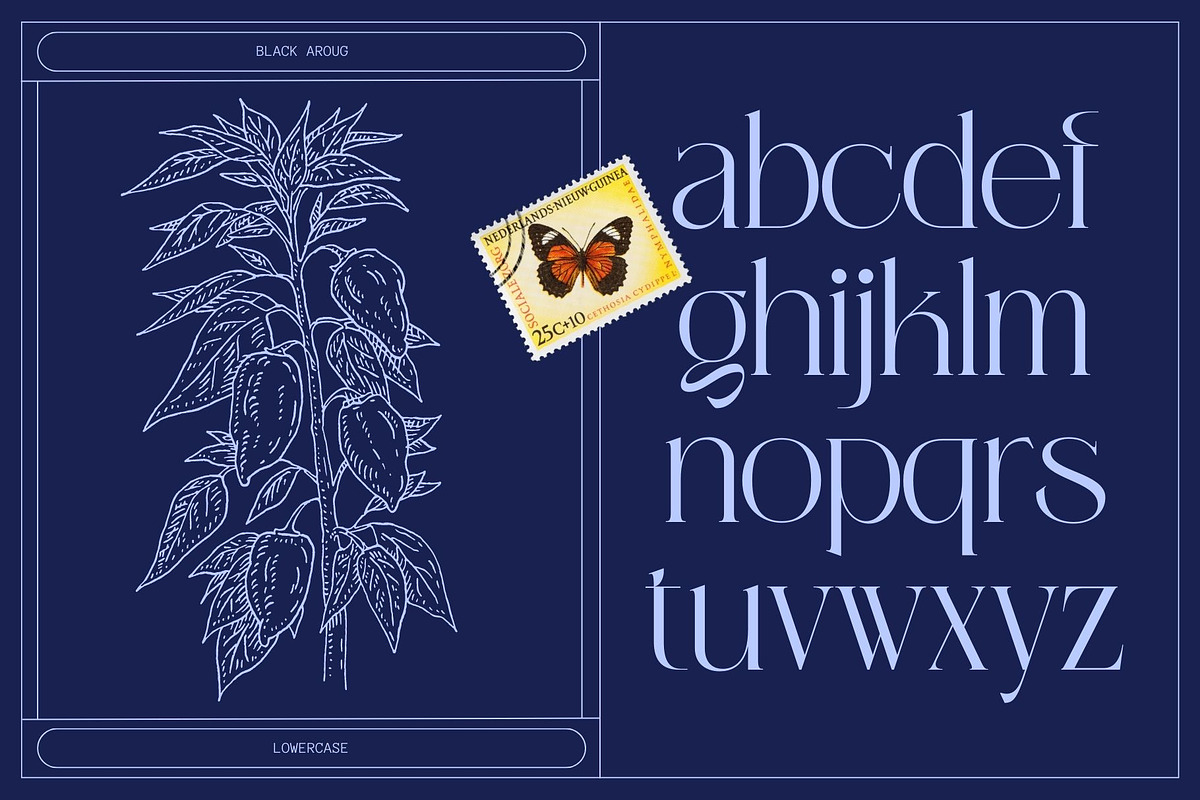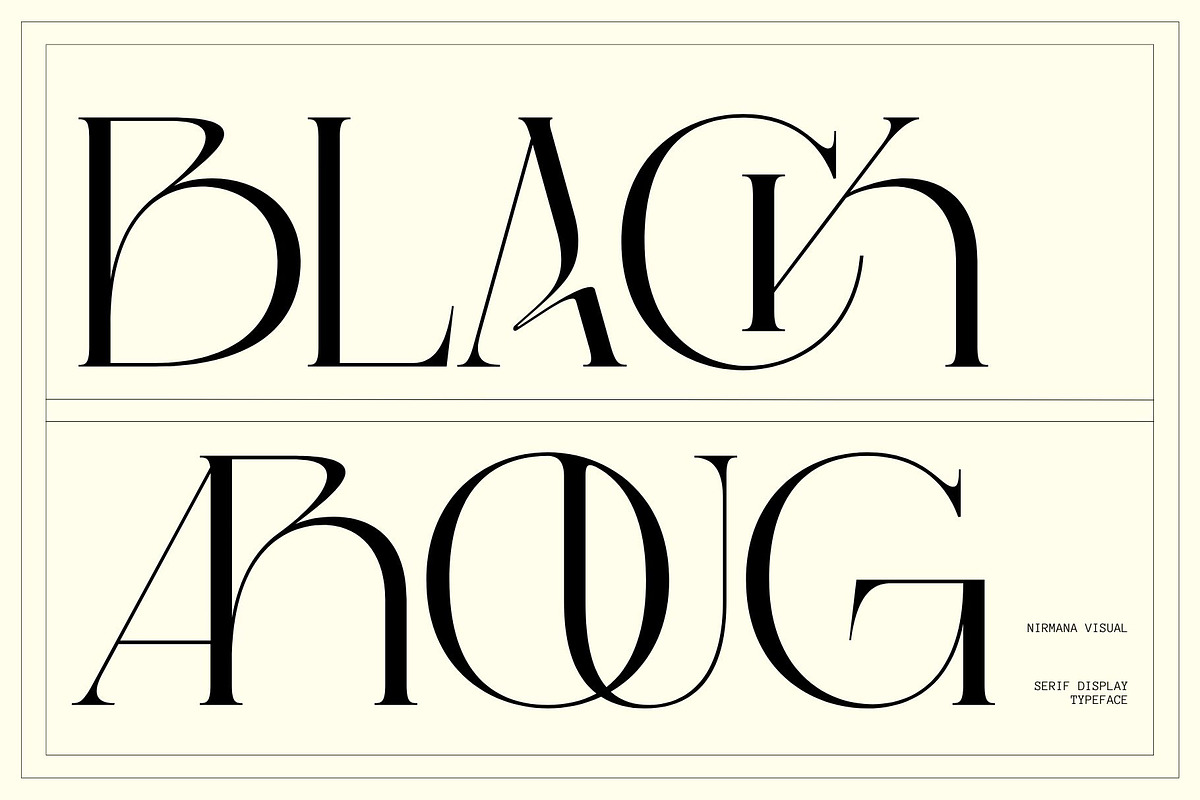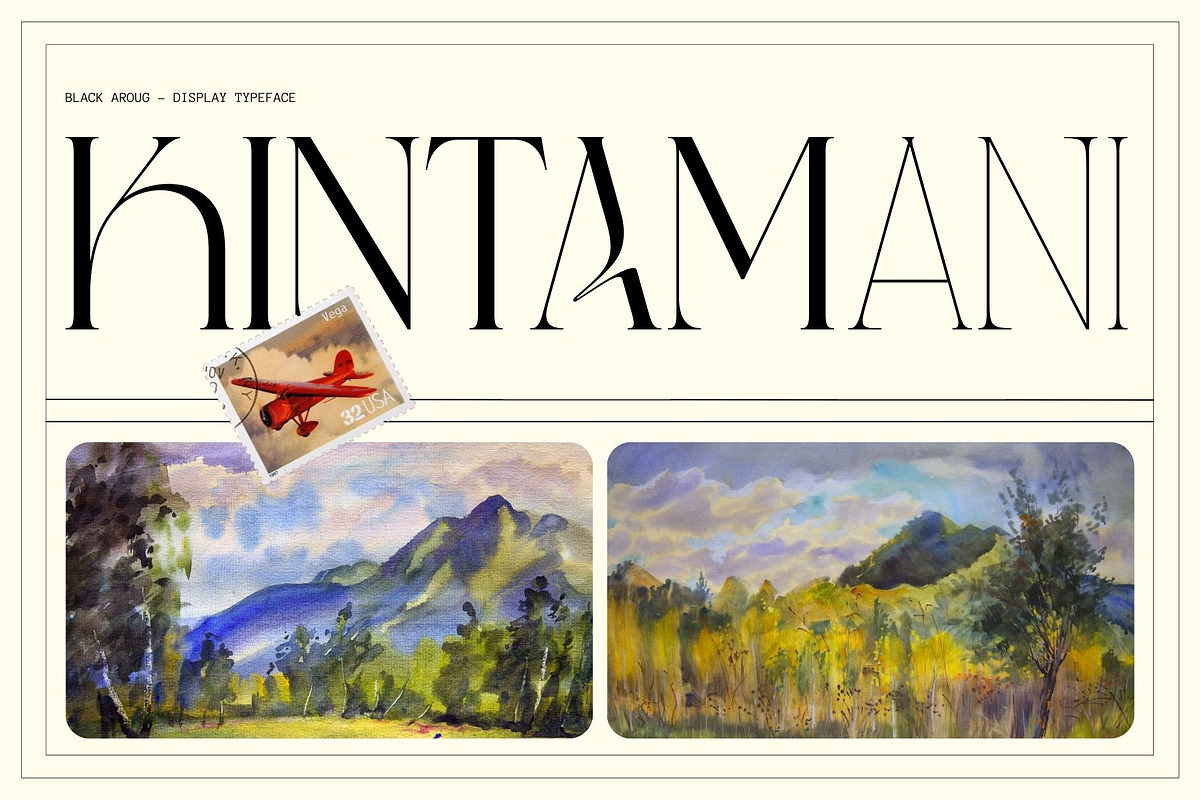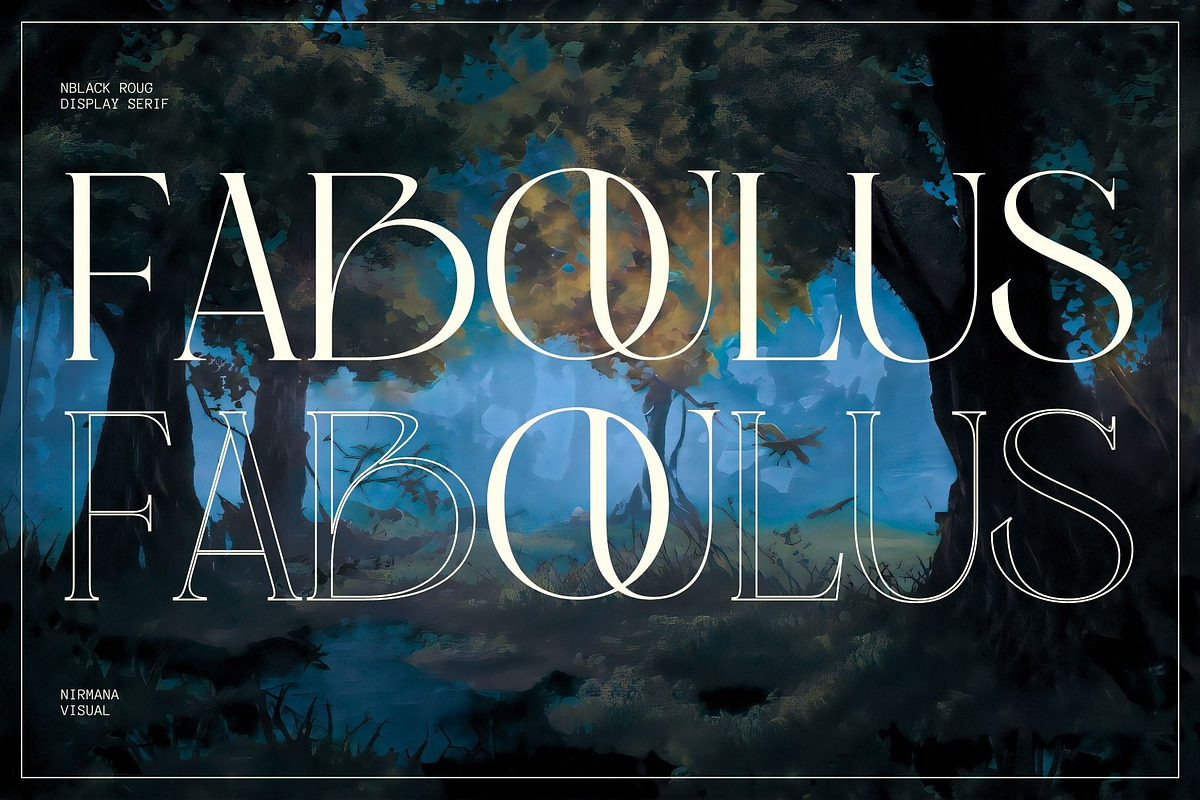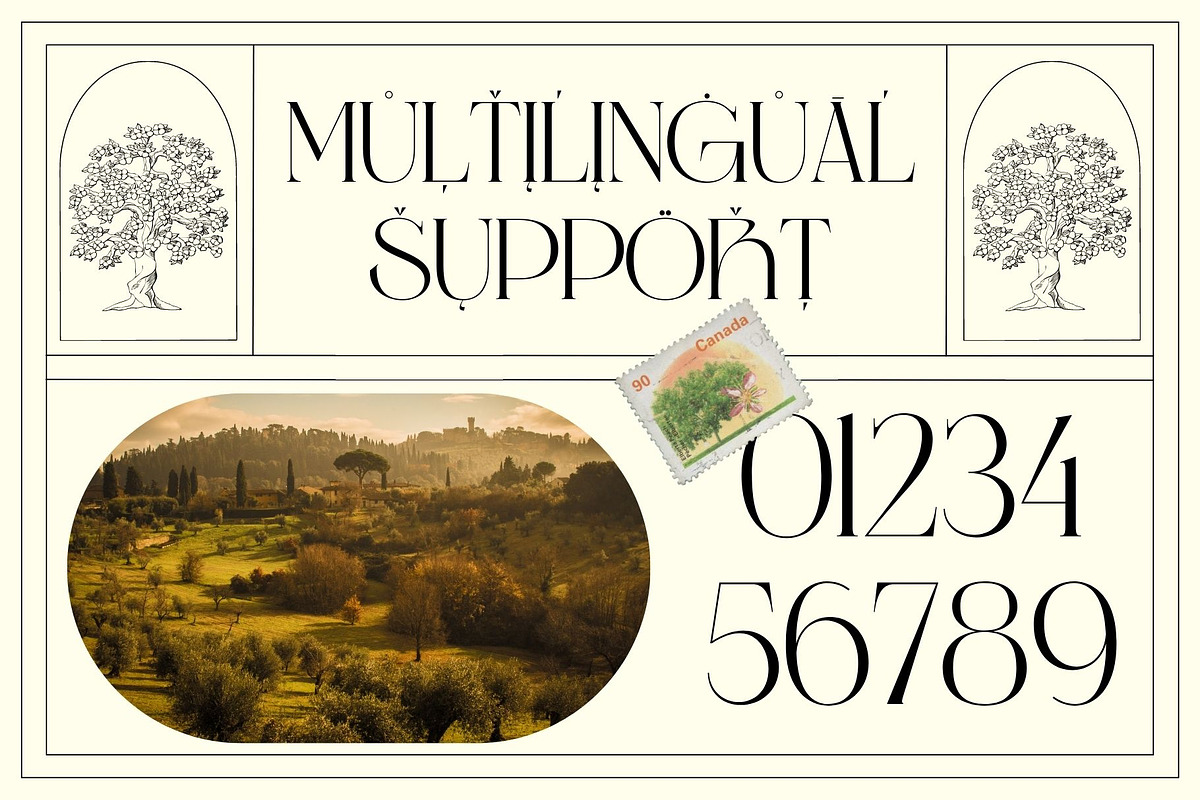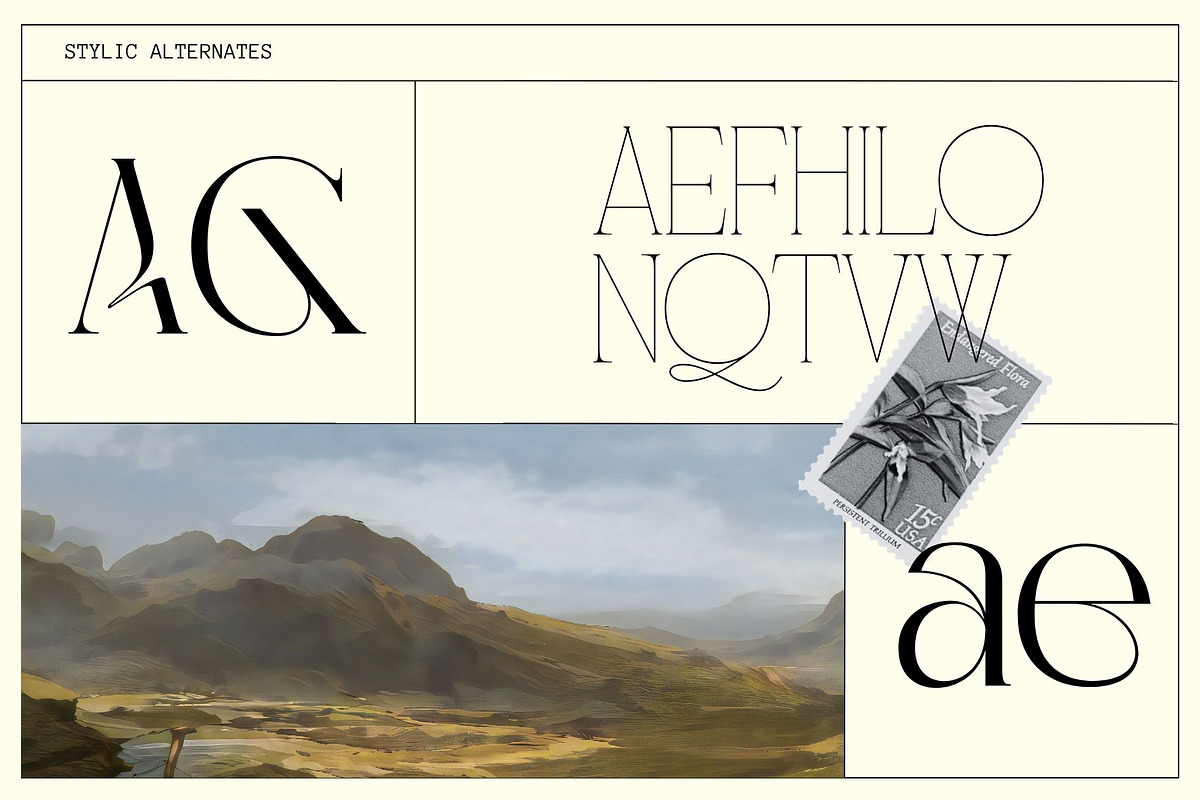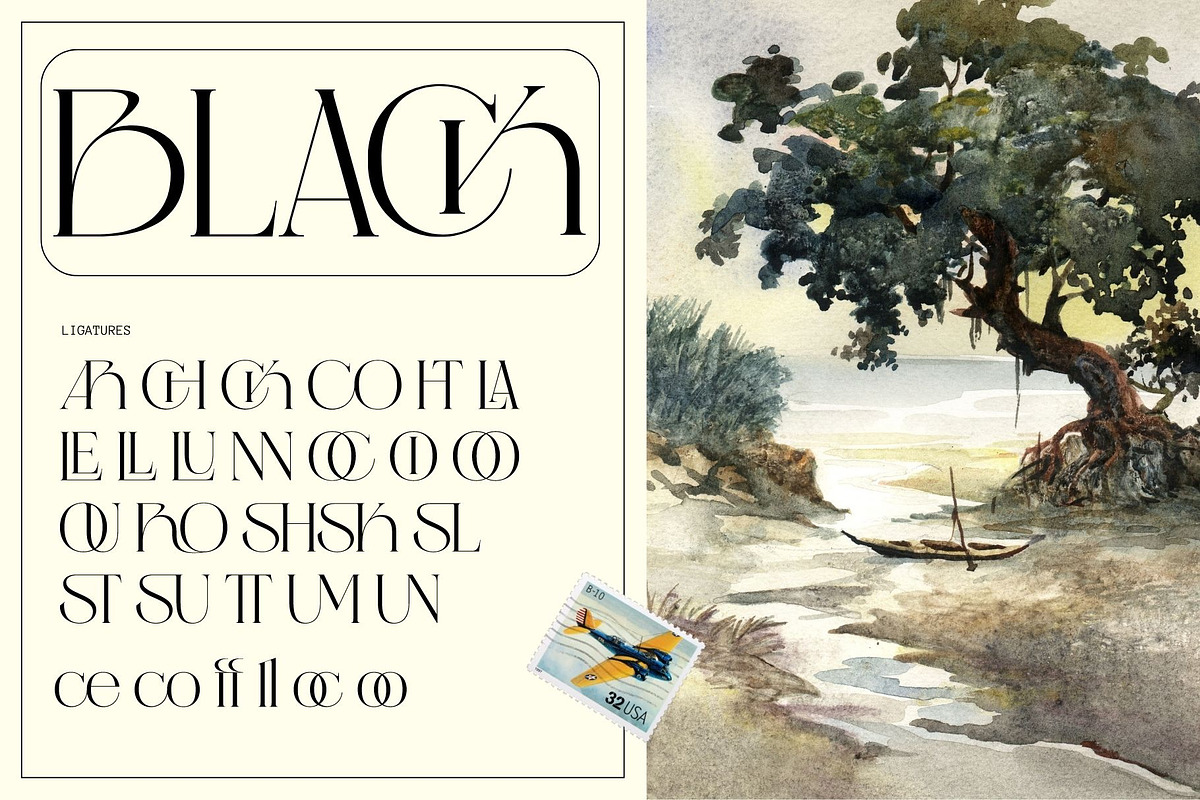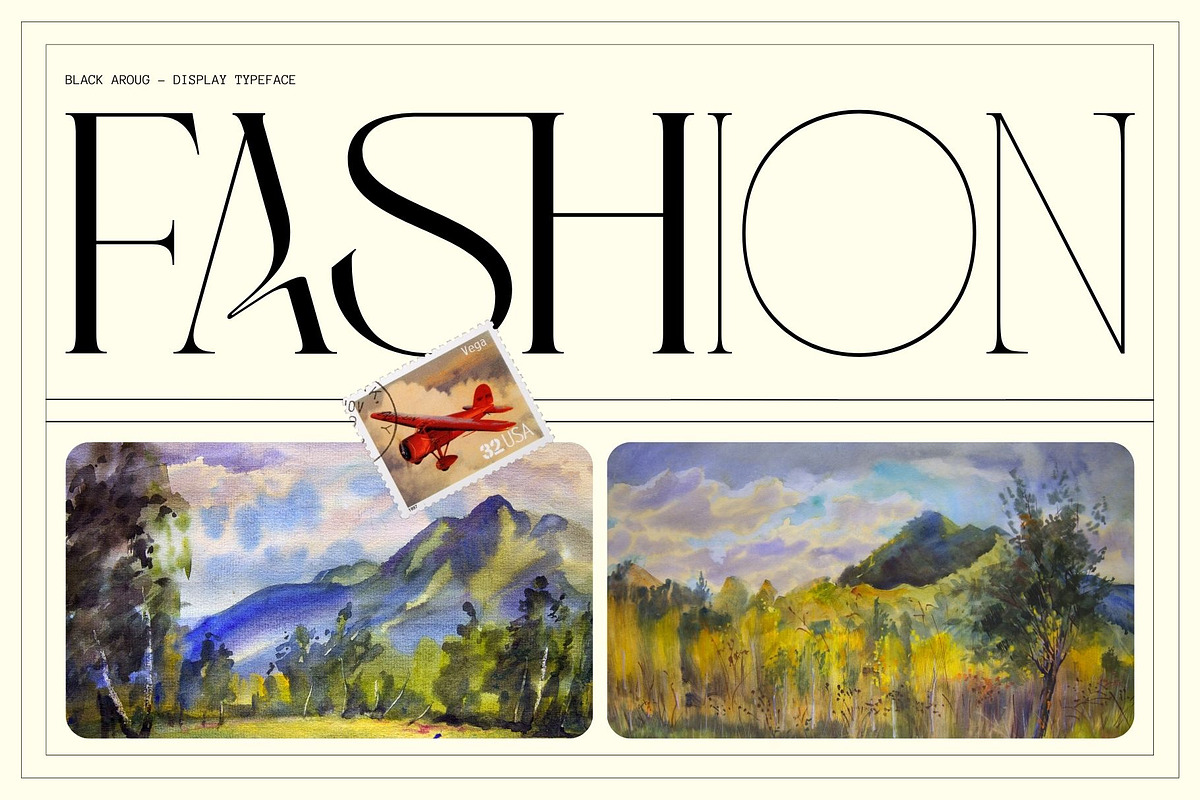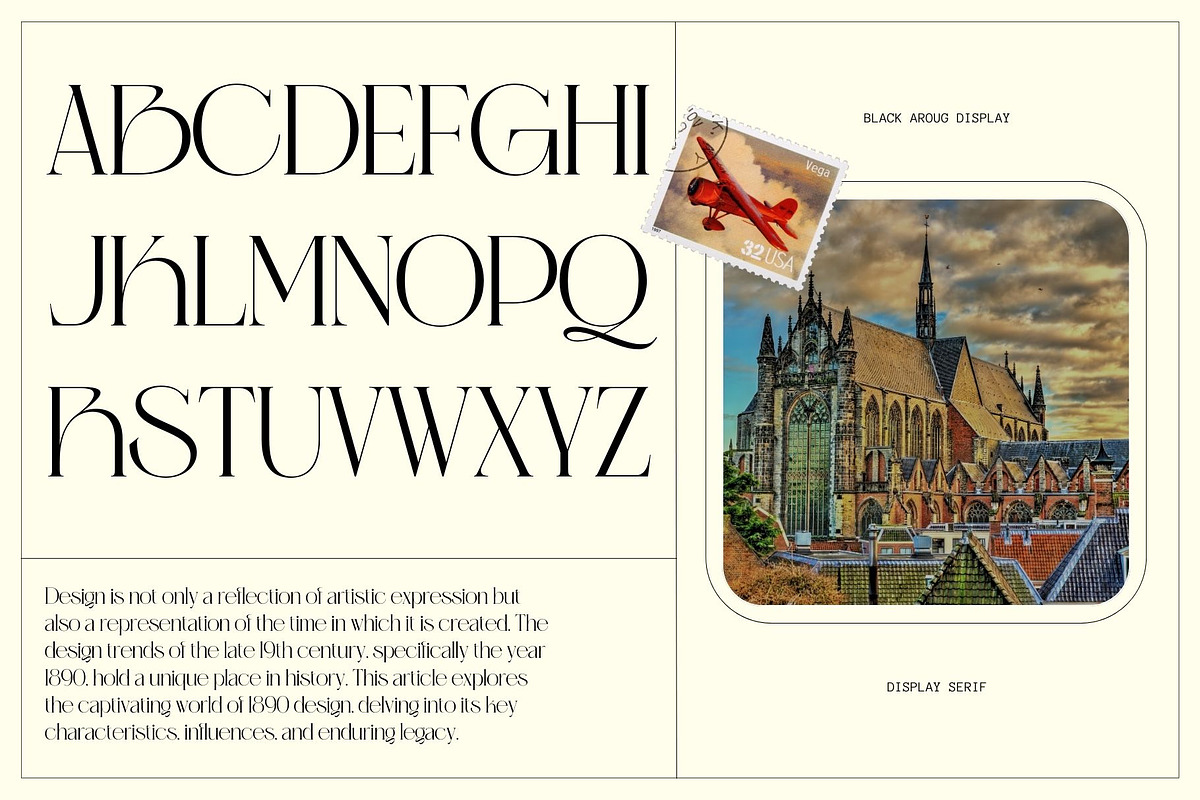
Black Aroug - Display Font
Black Aroug - Modern Font, Serif Display Typeface.
Black Aroug offers beautiful typographic harmony for a diversity of design projects, including logos & branding, social media posts, advertisements & product designs.